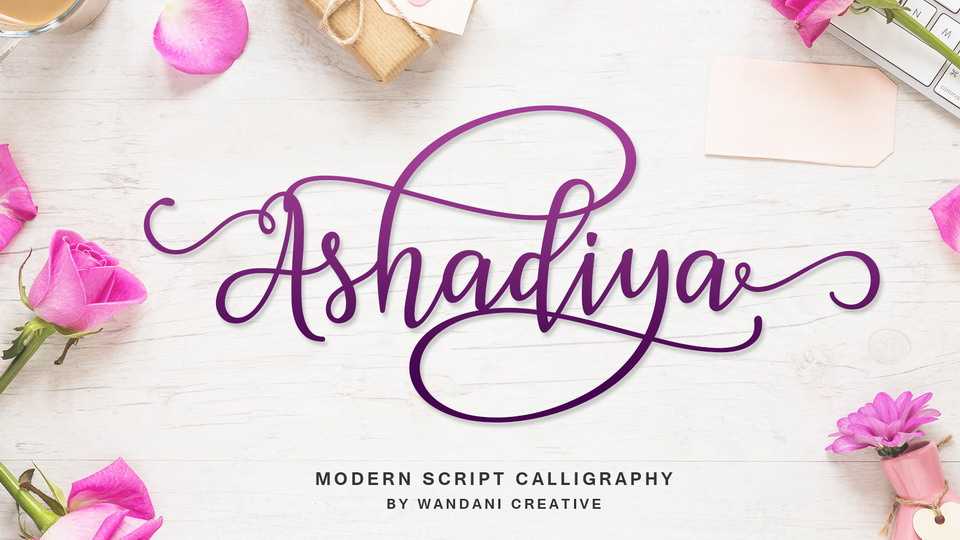
Download Ashadiya font, a beautiful modern calligraphy script, must have for all your design needs. Perfect for greeting cards, branding, stationery design, social media, packaging, magazine layouts, prints and more!
Designer: Wandani Creative